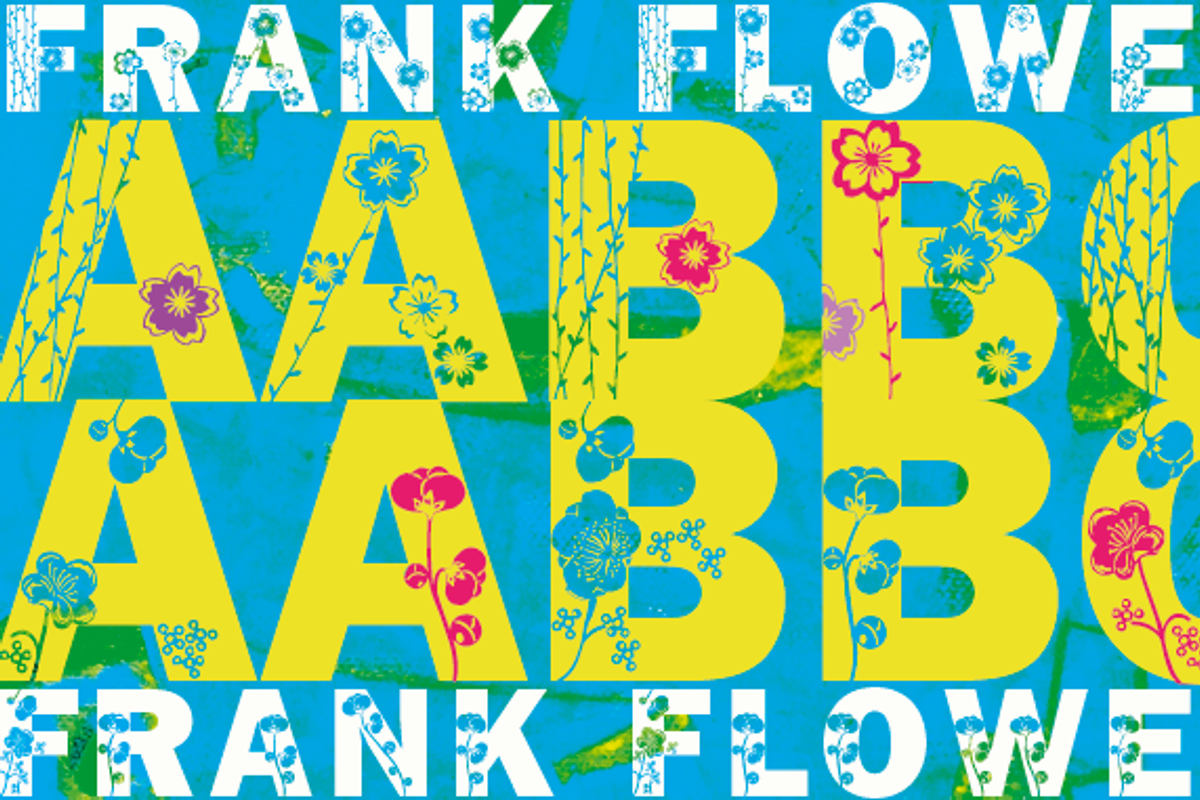
FrankFlowers
Frank Flowers is a display font designed by Gert Wiescher. It features a unique floral design and comes in uppercase and lowercase variations, allowing for creative mixing and matching. The font's playful and decorative nature makes it well-suited for posters and invitations, particularly those with a celebratory theme.